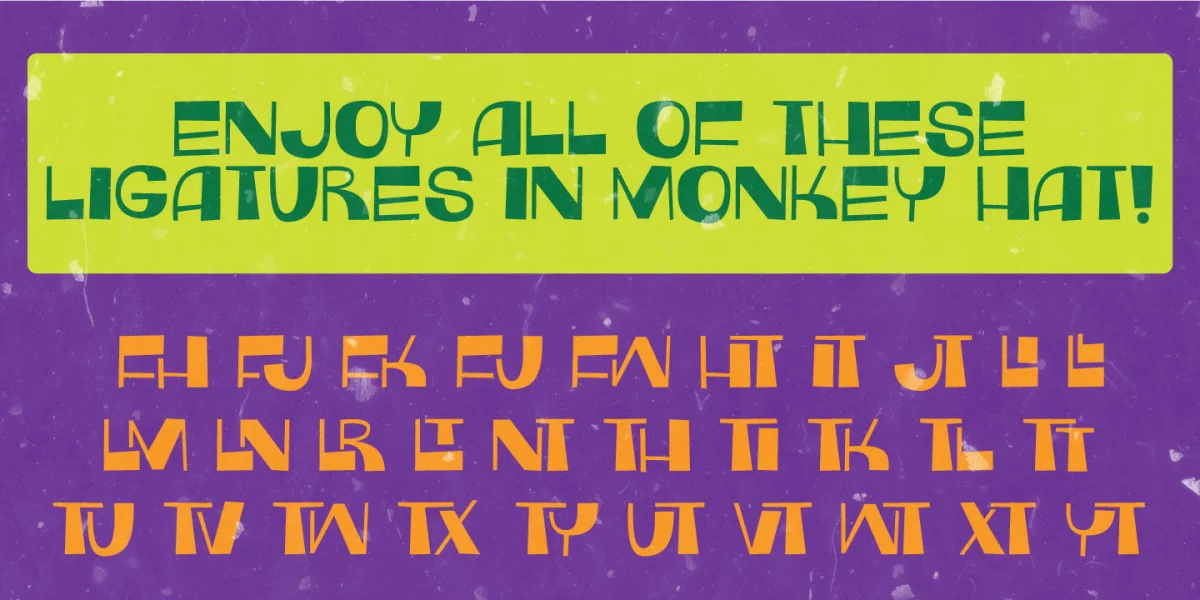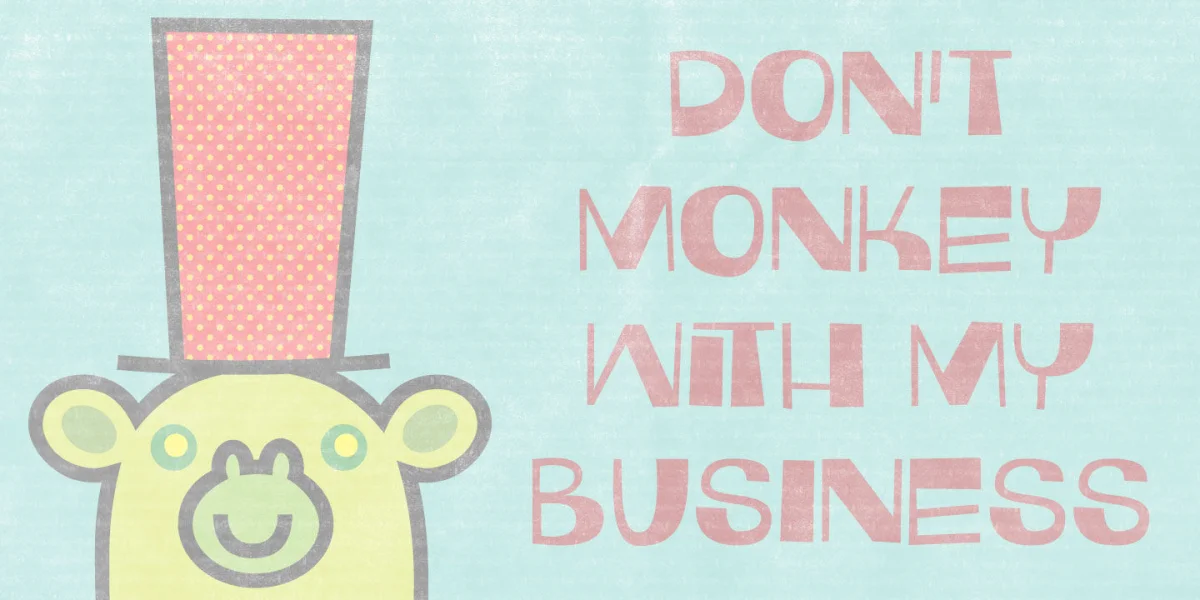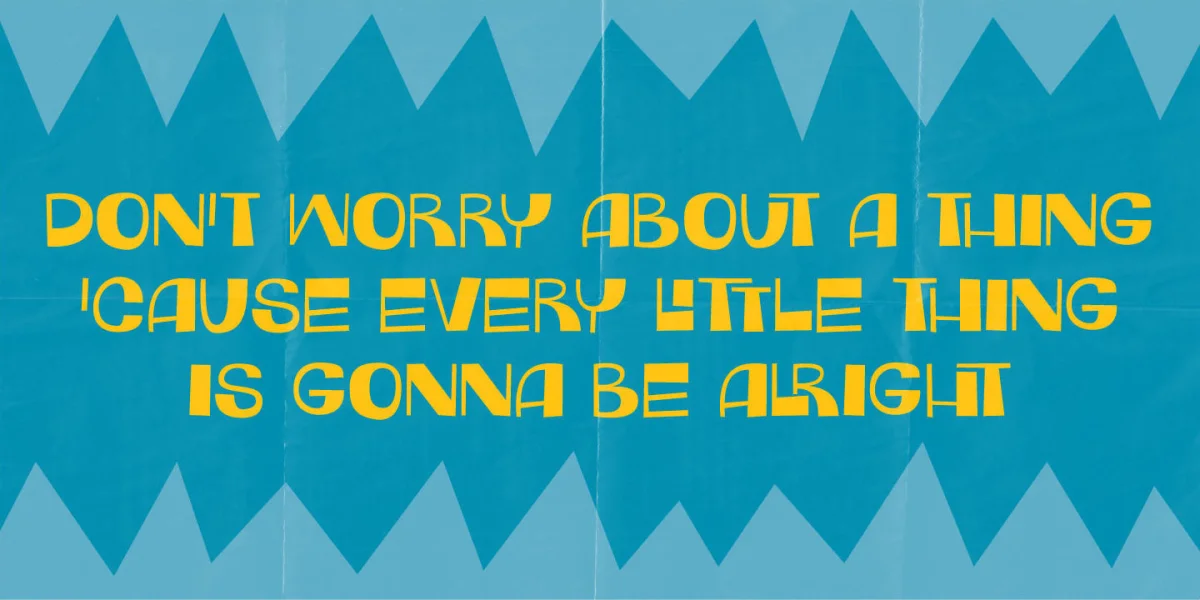
Monkey Hat is a playful font with a twist of art deco. The shareware version comes with cool ligatures to make the font appear even more monkey ... oh, sorry ... I meant funky! :)